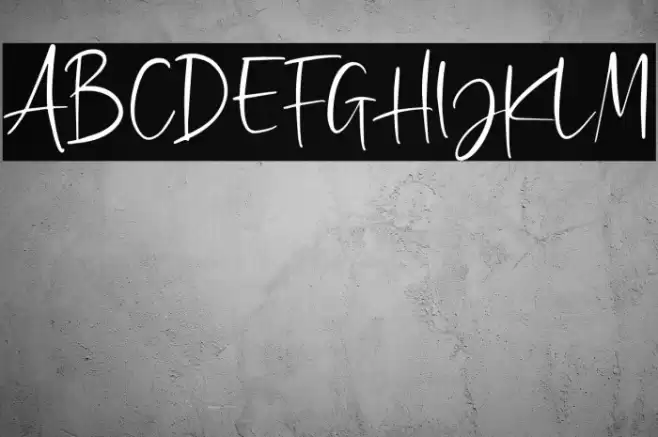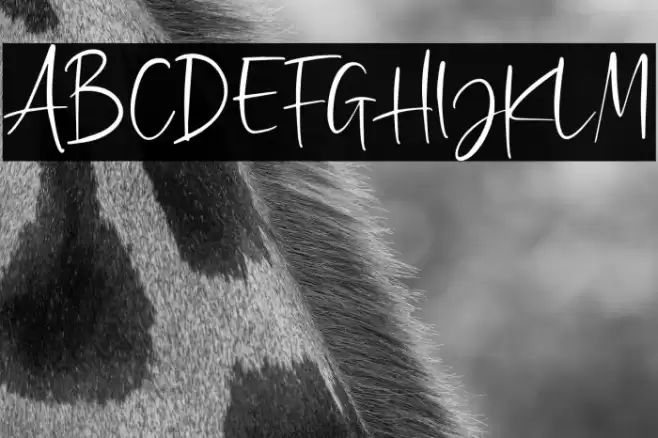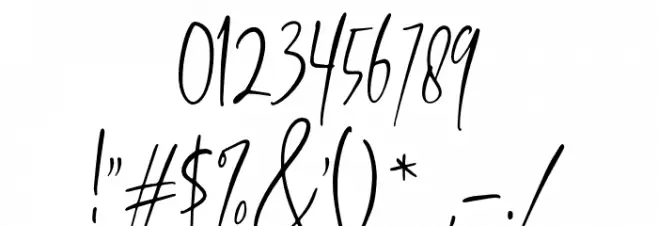
GoldbrickDEMO Font
GoldbrickDEMO Description
This font exudes a lively and dynamic energy with its handwritten style, characterized by fluid and slightly irregular strokes that give it a personal touch. The uppercase letters are tall and slender, with a playful tilt that adds movement and spontaneity. The lowercase letters maintain a consistent flow, enhancing the font's casual and approachable feel. Numbers and special characters are crafted with the same attention to detail, ensuring a cohesive look across all elements. The overall design is modern yet retains a classic handwritten charm, making it versatile for various creative applications.
A lively handwritten font with fluid, slightly irregular strokes and a playful tilt from Uncategorized fonts.
- Font: GoldbrickDEMO